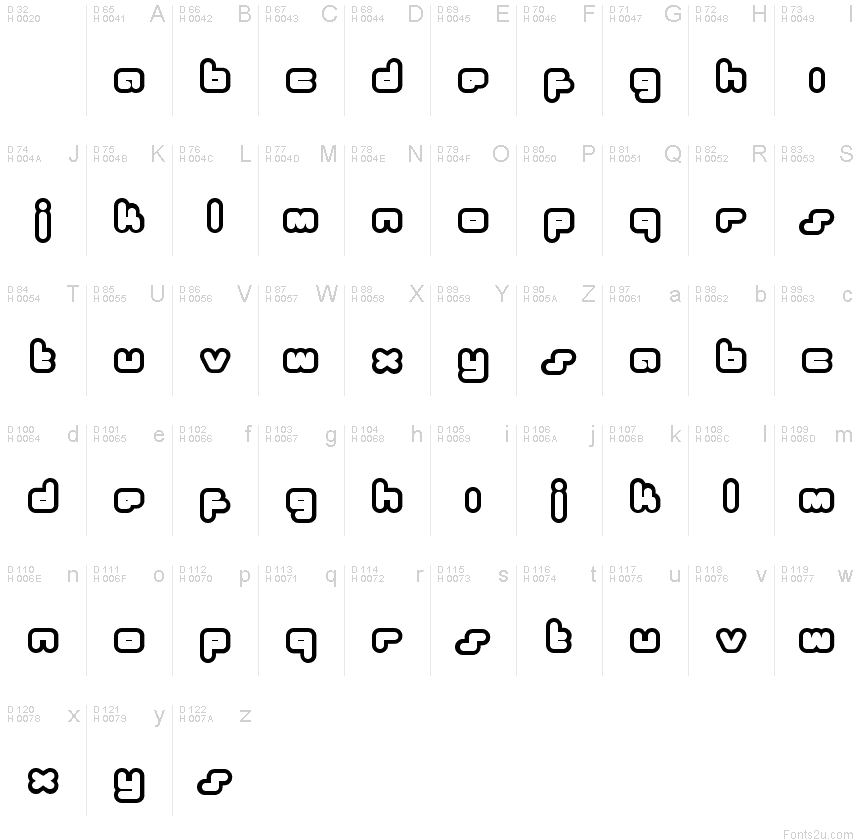
Bukkake
Bukkake font by Fenotype is a free decorative outlined typeface that looks like puffy bubble lettering traced with a thick marker. The rounded shapes feel inflatable and friendly, with roomy counters and a steady rhythm that stays readable even when it’s big and loud. That bold black outline also holds up nicely on busy backgrounds, like stickers or photos.
Using Bukkake font works beautifully for playful logos, snack or candy packaging, kids’ party invites, pop-up posters, YouTube thumbnails, streetwear graphics, and social headers. Let this free font headline at larger sizes so the outline can breathe, then pair it with a clean sans like Inter or Montserrat for the supporting text.